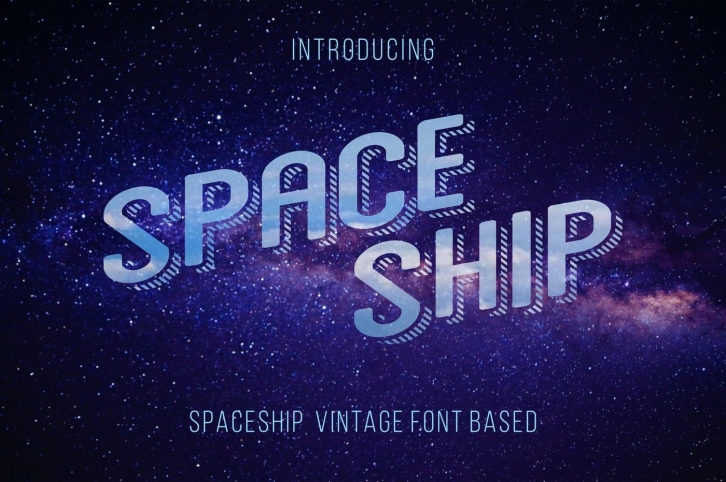
SpaceShip font is designed by the group of professionals and have futuristic vision. Based on fantastic fiction books of early 80s this font has been outlined by hand and stylized with cosmos-space designed futures. It has shadows with stripes and overall the font looking very attractive. It is ideally for your design in any subjects as well as party decoration and invitation letters and postcards. SpaceShip font have a tilted angle of all letters this gives the visual 3D effect.